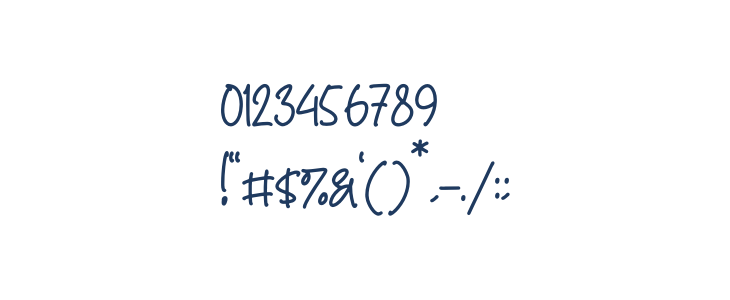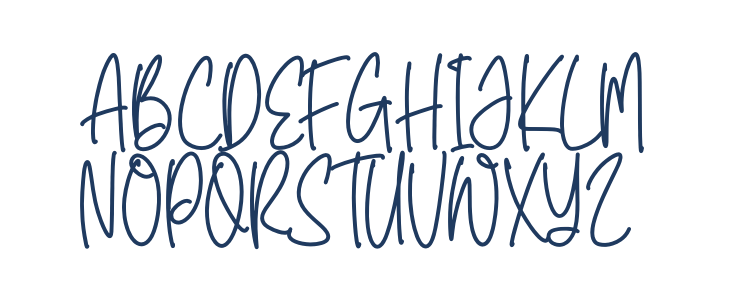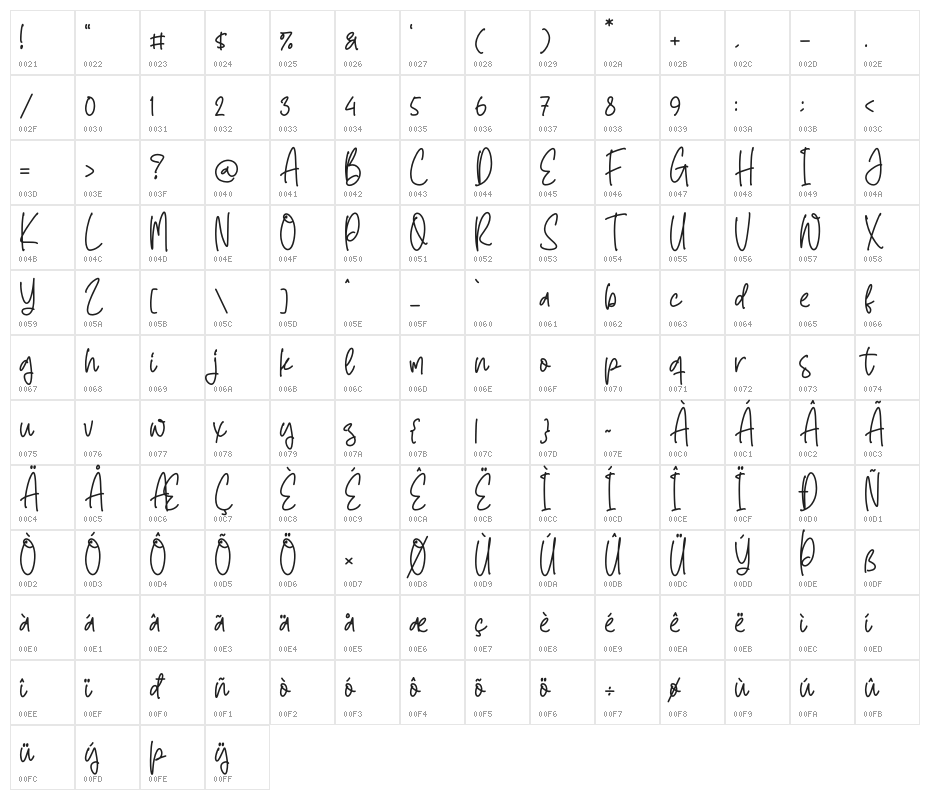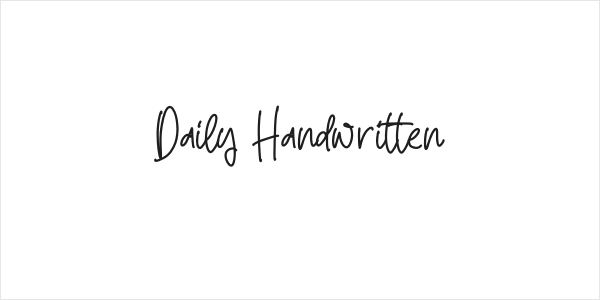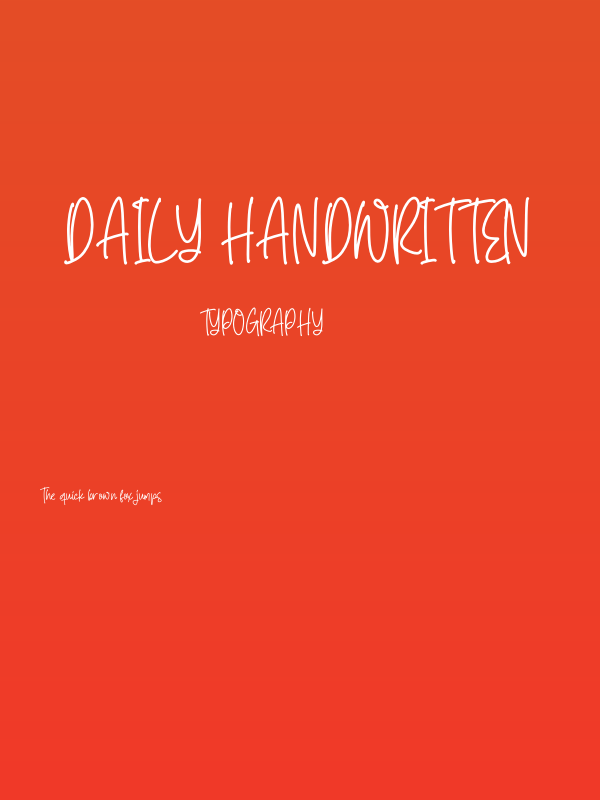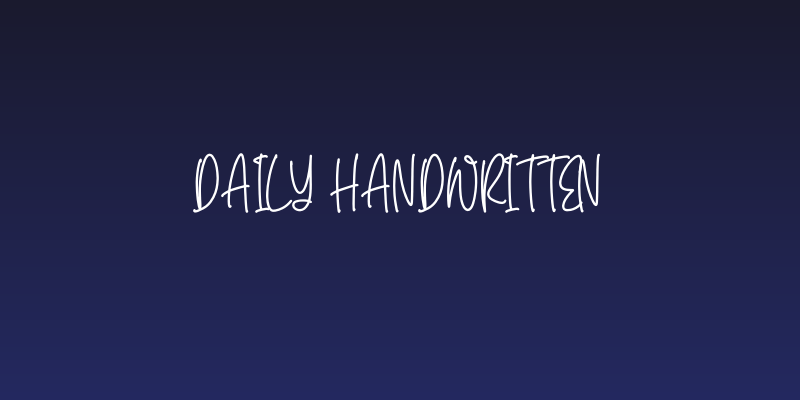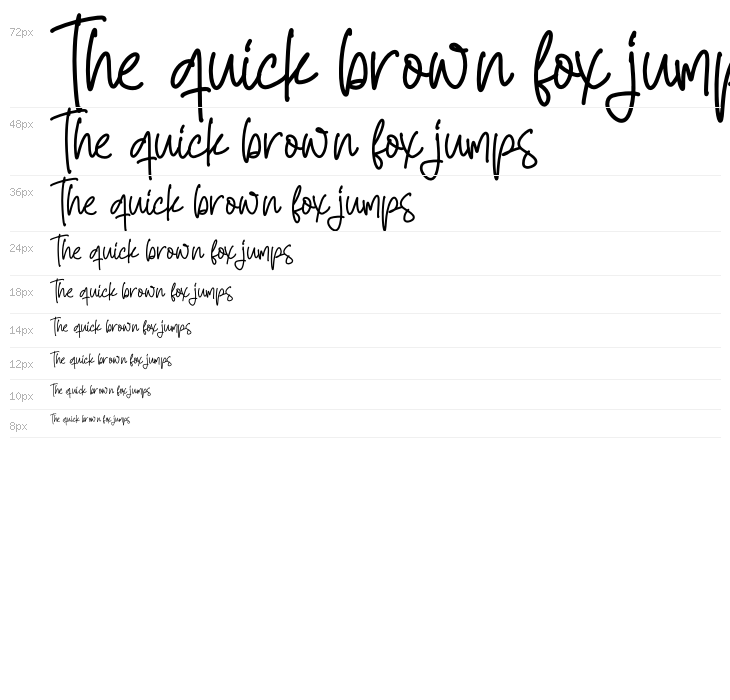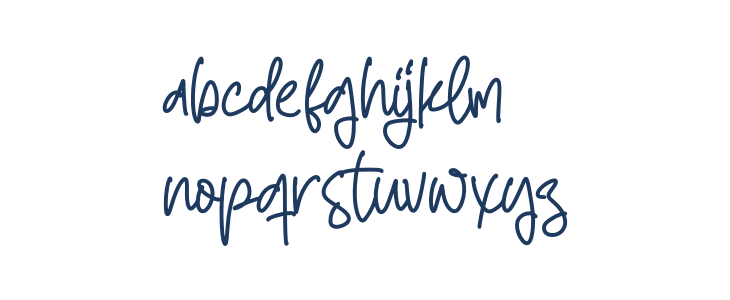
Daily Handwritten Font
Daily Handwritten Description
A casual, loose handwritten font with tall, narrow letterforms and irregular, playful strokes that mimic natural handwriting. The characters have a spontaneous, informal feel with varying heights and some exaggerated ascenders and descenders.
| Width | Condensed |
| Overall Style | Casual, Playful, Handwritten |
| Use Case | Personal notes, Invitations, Informal branding |
| Proposed Projects | Personal notes, greeting cards, diary entries, casual branding, social media graphics, informal posters. |